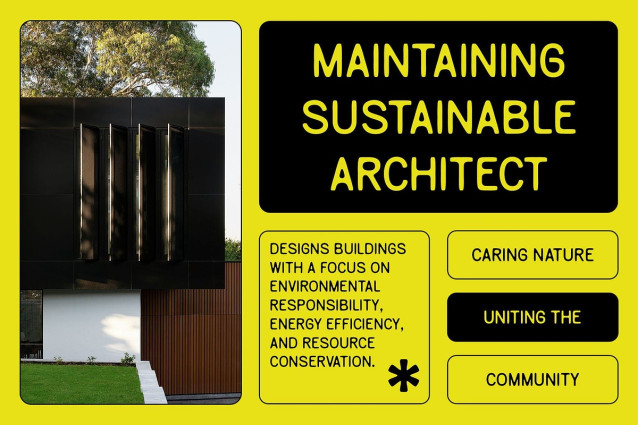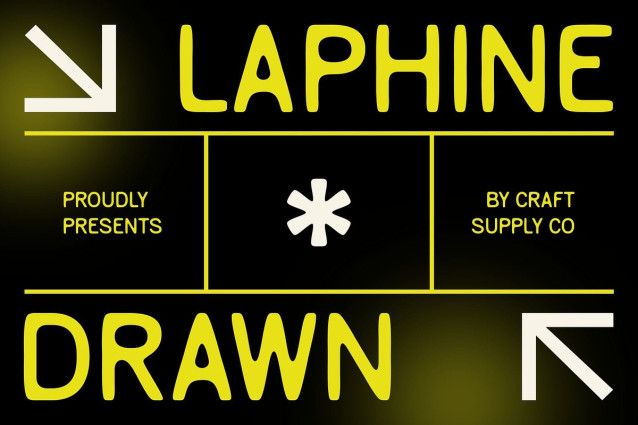
Laphine Drawn Font
Laphine Drawn is a contemporary sans-serif font that blends clean geometric construction with a subtle hand-drawn finish, resulting in a look that is both professional and deeply human. Its minimalist letterforms are thoughtfully designed for clarity and balance, embodying the aesthetic of modern typography while introducing a soft, organic nuance.
Subtle Hand-Drawn Effect for a Personal Feel What makes Laphine Drawn unique is its delicate drawn effect, which adds a textured, handcrafted essence to each letter. The slightly imperfect edges and humanized strokes offer a sense of warmth and personality, without compromising legibility. This blend of precision and artistry allows your designs to communicate authenticity, creativity, and care.
Ideal for Creative, Emotional, and Artistic Designs This font is perfect for brand identities, editorials, packaging, digital media, and artistic projects that seek to connect on an emotional level. Laphine Drawn blends modernity with creative personality, making it well-suited for projects that aim to be visually engaging while retaining an elegant simplicity. Whether used in headlines, quotes, logo designs, or editorial layouts, Laphine Drawn adds a unique layer of texture and charm.